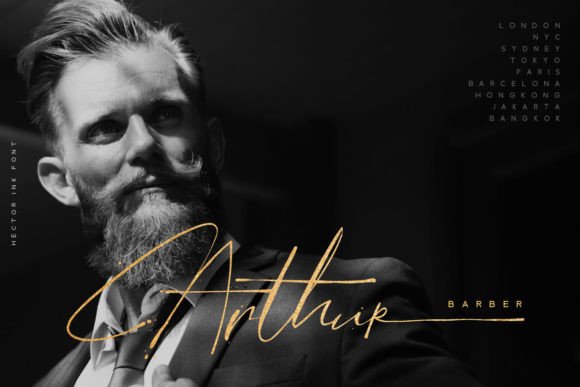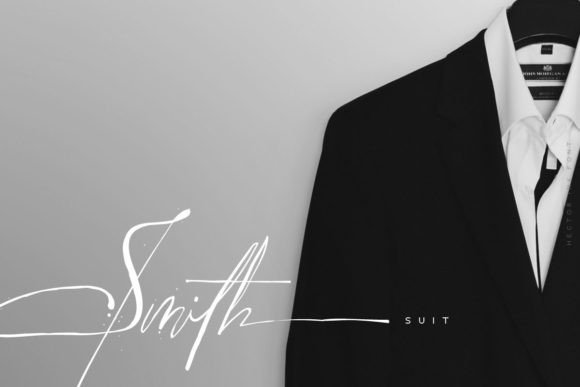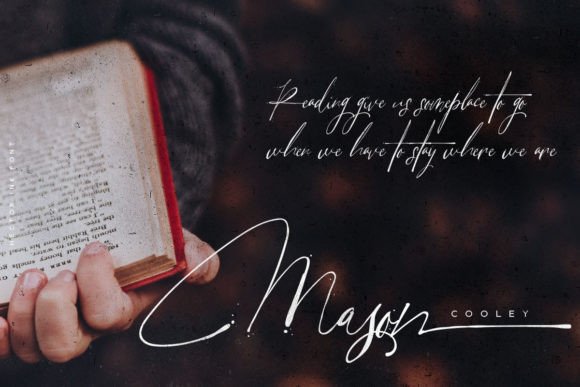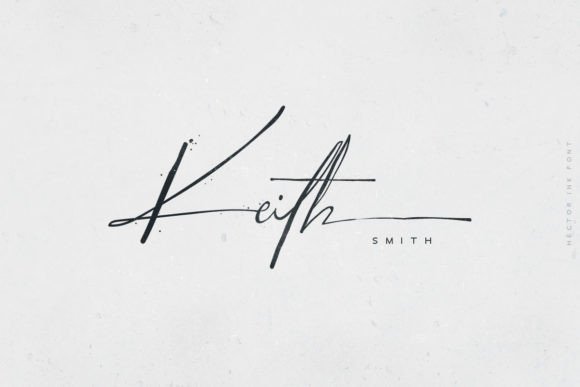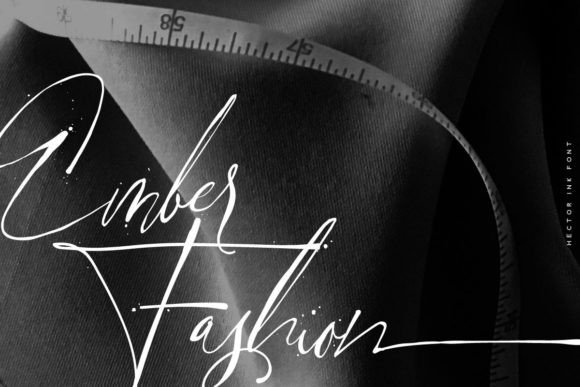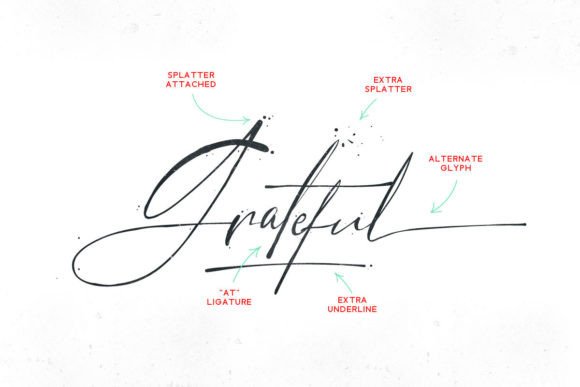
Discover the Magic of Beautiful Typography with Hector Ink Font
As a designer, there’s nothing quite like the thrill of bringing a project to life. You pour over inspiration boards, brainstorm ideas, and finally, it all comes together in a stunning visual feast. But what makes the difference between a good design and a great one? Often, it’s the typography that elevates the entire piece. And that’s where the Hector Ink Font comes in – a modern and feminine script font that adds a touch of elegance to any project.
With its carefully crafted letters and modern script style, the Hector Ink Font is perfect for a wide range of applications, from photography and watermarks to blog headers and wedding invitations. Its PUA encoding makes it easy to access all the glyphs and swashes, giving you the freedom to get creative and make your text truly shine. Whether you’re a seasoned designer or just starting out, the Hector Ink Font is a valuable addition to your toolkit.
- Font Family: A unique, handwritten font with a modern twist, suitable for various design projects.
- Unique Characteristics: The Hector Ink Font features a distinctive ink-like texture, giving it a unique and artistic feel.
Hector Ink Font Review
I recently had the chance to work with the Hector Ink Font, and I have to say, it’s been an interesting experience. ✨ One thing that really stands out is the unique, hand-drawn feel of the font. It’s perfect for creating a vintage or distressed look in your designs.
Here are some of the features that I like about the Hector Ink Font:
- ✨ Unique, hand-drawn style that adds character to designs
- ✨ Perfect for creating a vintage or distressed look
- ✨ Wide range of language support, including many non-Latin scripts
- ⚠️ Some characters may not be as smooth or polished as others
- ⚠️ May not be suitable for formal or professional designs
- ⚠️ Can be difficult to read in certain font sizes or combinations
Overall, I would say that the Hector Ink Font is a great choice for designers who want to add a unique touch to their projects. While it may not be perfect for every situation, it’s definitely worth considering for the right projects. With a little creativity and experimentation, you can achieve some amazing results with this font.
Getting the Most Out of Hector Ink Font
For optimal results, use the Hector Ink Font in conjunction with bold or italic text to create a dramatic effect. You can also pair it with other fonts to create a unique and eye-catching design.
The Hector Ink Font is ideal for use in creative projects such as:
- Wedding invitations
- Book covers
- Marketing materials
- Personalized stationery
Alternatives to Hector Ink Font
Great Vibes is a modern, elegant script font perfect for designers looking for a sophisticated and refined look. It’s ideal for use in branding, packaging, and advertising materials where a touch of luxury is desired. Compared to Hector Ink Font, Great Vibes is more formal and less handwritten, making it suitable for a wider range of applications.
Carolyna Pro is a elegant, cursive font designed for use in high-end branding and luxury packaging. It features a classic, sophisticated look that’s perfect for designers who want to create a sense of luxury and sophistication. Compared to Hector Ink Font, Carolyna Pro is more refined and less whimsical, making it suitable for use in corporate branding and high-end advertising.
Can I customize Hector Ink to create a bespoke font for my brand?
While Hector Ink is a high-quality, pre-designed font, it’s not possible to customize the font to create a bespoke version. However, you can use the font in conjunction with other design tools, such as font editors or design software, to create custom typography that incorporates Hector Ink as a base font.